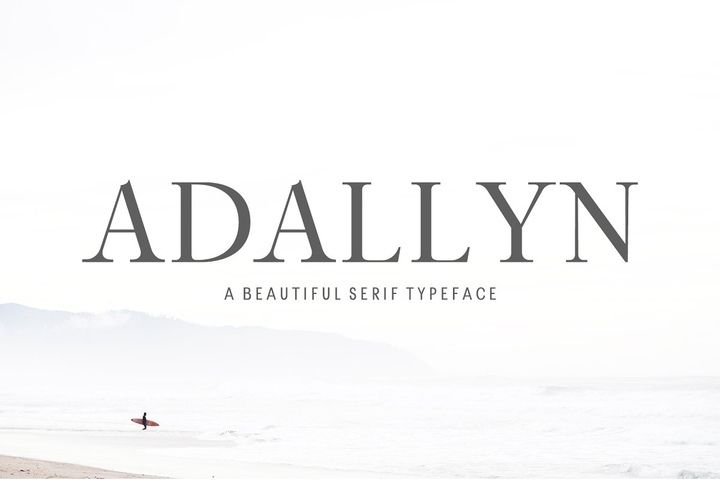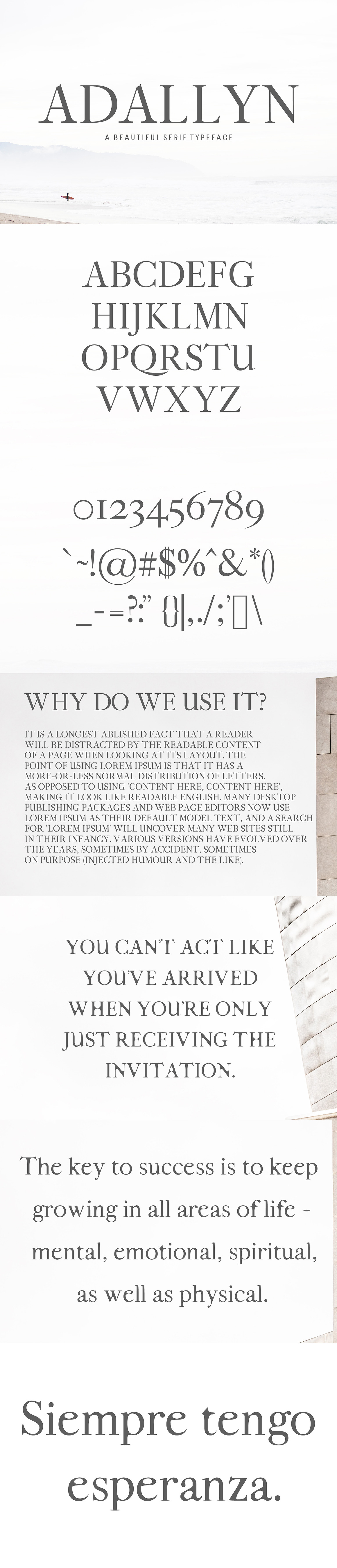
Adallyn Serif Font Family
Adallyn Serif Font Family is perfect for romantic wedding invitations, boutique branding, feminine lifestyle blogs, beauty product packaging, fashion magazines, artisanal craft labels, elegant stationery design, and upscale retail communications.
Adallyn Serif Font Family is exciting because it combines delicate femininity with readable sophistication, featuring graceful serif details and flowing letterforms that create an enchanting visual experience. Its charming personality adds warmth and elegance to any design while maintaining professional quality.
Adallyn Serif Font Family family includes light, regular, and bold weights with matching italic variations, offering designers six beautifully crafted font styles for creating cohesive and romantic typographic solutions.
Adallyn Serif Font Family Free Download provides access to typography that captures the essence of modern femininity and timeless elegance. This exquisite typeface collection demonstrates masterful balance between delicate details and strong readability, making it particularly effective for brands targeting sophisticated female audiences. The font's graceful character construction and refined serif styling create an atmosphere of luxury and personal connection that resonates deeply with discerning consumers.
Design professionals consistently select Adallyn Serif Font Family for projects requiring emotional appeal and visual sophistication. Its romantic character works magnificently in wedding industry applications, beauty brand communications, and lifestyle publications where personal connection and aesthetic appeal drive engagement. The font's versatile nature adapts beautifully between intimate personal messaging and broader commercial applications.
The Adallyn Serif Font Family download package includes comprehensive character sets with decorative elements, stylistic alternates, and elegant ligatures that enhance its romantic appeal. This attention to typographic refinement ensures professional results in high-end design projects requiring sophisticated visual hierarchy. The font performs exceptionally across both digital and print media, maintaining its delicate charm at various scales.
Creative teams appreciate Adallyn Serif Font Family's ability to communicate authenticity and personal touch in an increasingly digital world. Its handcrafted appearance and feminine sensibility help brands establish emotional connections with their audiences, making it an essential tool for organizations seeking to create memorable, heart-centered communications that inspire trust and loyalty.